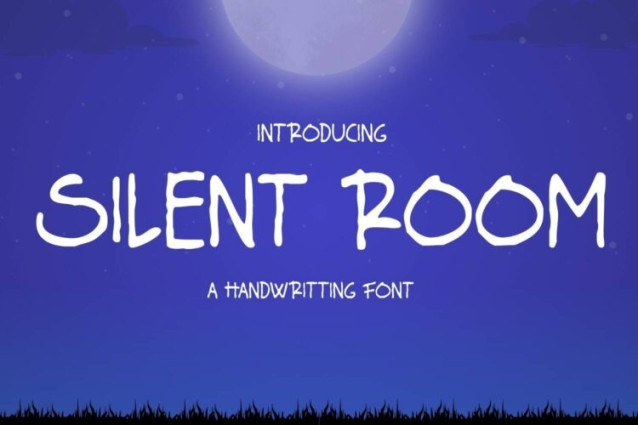
Silent Room Font
Silent Room Font is a cute handwritten font, ideal for educational environments – a great choice for school projects, kindergarten activities, college notes, or graduation memorabilia. Perfect for t-shirts, book covers, and children’s creative works.